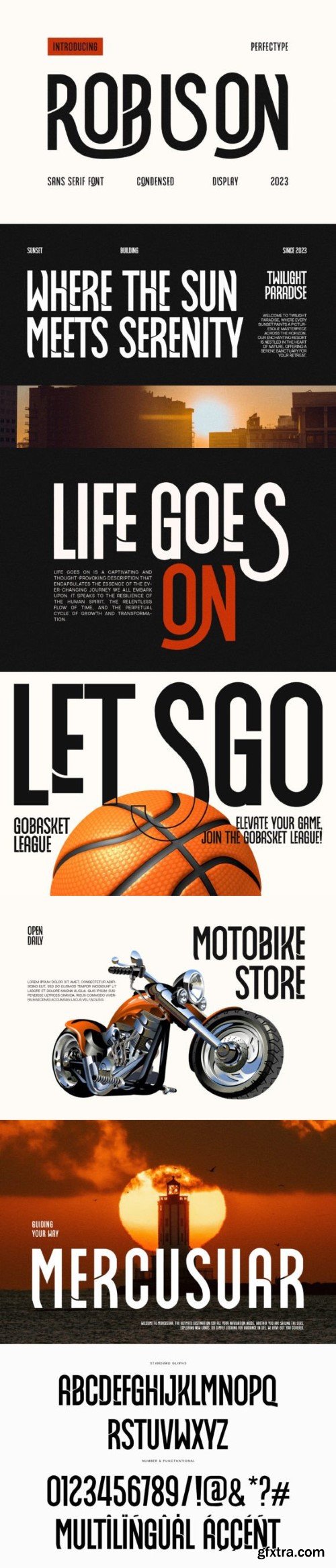
罗宾逊字体
Inspired by the famous minimalist logo perfect for designing templates, brochures, videos, advertising branding, logos, invitations, layout designs, elegant crafting, beauty design, and others.